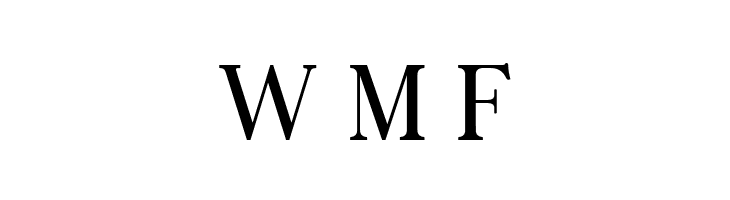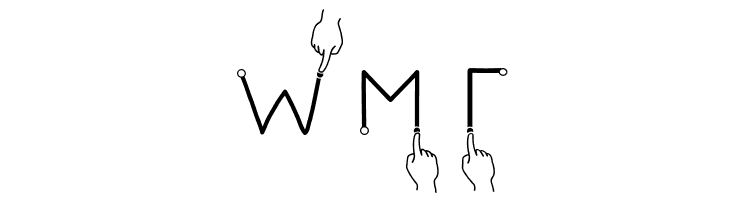
Gesture Slant BRK Font
A bold, slanted font with sharp, angular edges and consistent thickness.
Gesture BRK Font
A bold, gothic-inspired font with intricate detailing and a medieval flair.
Gesture Glyphs Font
Minimalist hand gesture glyphs for interface instructions.
Gesture Sans Font
A playful, handwritten font with geometric and whimsical elements.
Gestures Font
Expressive, abstract font with gestural, sketch-like strokes.
Gesture Hand Font
A playful font combining hand gestures with each character for a whimsical design.
Gesture Thin BRK Font
A modern-vintage font with thin strokes and decorative serifs.
Bright Gesture DEMO Font
A classic serif font with elegant strokes and moderate contrast.
Gesture Thin Slant BRK Font
A thin, slanted font with a modern and dynamic style.
GesturesMK Font
Expressive, abstract font with playful, doodle-like characters.
Gesture-Points Font
A playful, dotted font with curvy, connected strokes and a whimsical style.
Gesture Font
A playful, handwritten font with tall, narrow letters and smooth strokes.
Gesture-Glyphs Font
Minimalist line-art glyphs illustrating hand gestures and motions.
Gesture Points Font
A playful, dot-connected font with a whimsical and modern design.
Gesture-Hand Font
A playful font with hand gestures integrated into each character.
Gesture-Sans Font
A playful, hand-drawn font with a whimsical and informal style.
Behind the Gesture Font
A bold, cursive handwritten style font suitable for casual and expressive designs.